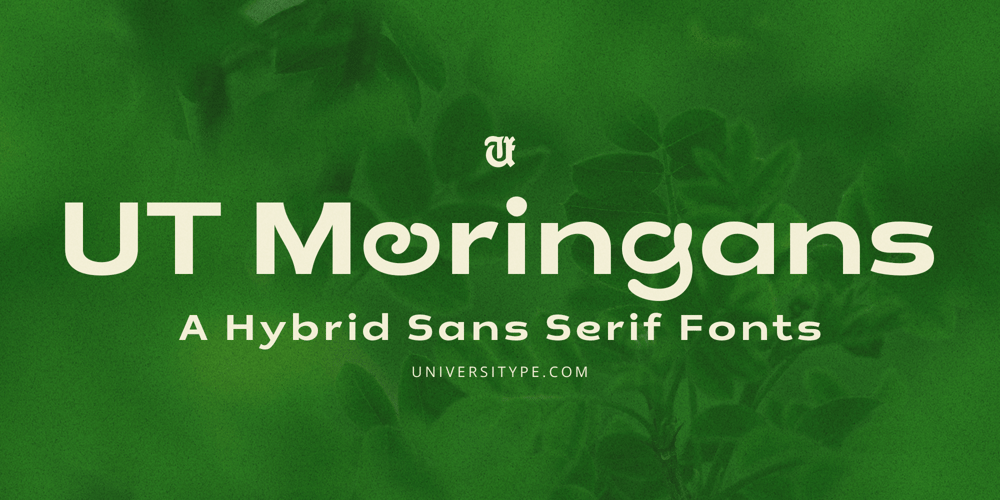
UT Moringans Font Family was designed by Muh. Aswar, Novan Arisandi and published by Universitype. UT Moringans contains 1 styles and family package options. The design of UT Moringans draws inspiration from the moringa leaf, known for its rounded shape and smooth edges. Often referred to as the “miracle tree,” the moringa symbolizes growth, sustainability, and well-being. These qualities have been subtly infused into every curve and contour of the font’s letterforms.This typeface bridges two worlds: the geometric structure of sans serifs and the fluid organic forms found in nature. As a result, UT Moringans feels fresh, familiar, and approachable, making it suitable for both professional and playful applications. Its subtle botanical character allows it to complement eco-conscious branding effortlessly. Key Features :UT Moringans offers a unique mix of functionality and artistic flair. Here’s what makes it stand out: Hybrid Sans Serif Design: The primary letterforms are clean and straightforward, with organic influences that set them apart from standard sans serif fonts. Alternate Styles Included: For projects that need a playful twist, UT Moringans comes with a set of hand-drawn alternates and stylistic variations, adding whimsy and creativity to your designs. Legibility and Balance: Despite its decorative elements, the font maintains excellent readability, making it suitable for both headings and body text. Comprehensive Punctuation and Symbols: The typeface includes punctuation, currency symbols, fractions, and other useful glyphs, ensuring it fits into various design environments. Eco-friendly Theme: The leaf-inspired design resonates with sustainability-focused brands, enhancing the font’s message of growth and well-being. Inspiration Behind the Design :The UT Moringans project was born out of an admiration for the elegance and simplicity of the moringa leaf. Designers at Universitype wanted to create a typeface that captures the natural beauty of this plant while offering the practicality of a sans serif font.By incorporating the gentle curves and rounded edges of the leaf’s structure, the font channels the calm and harmonious qualities associated with nature. The alternates add a hand-drawn, organic touch—an ode to the imperfect beauty found in the natural world.